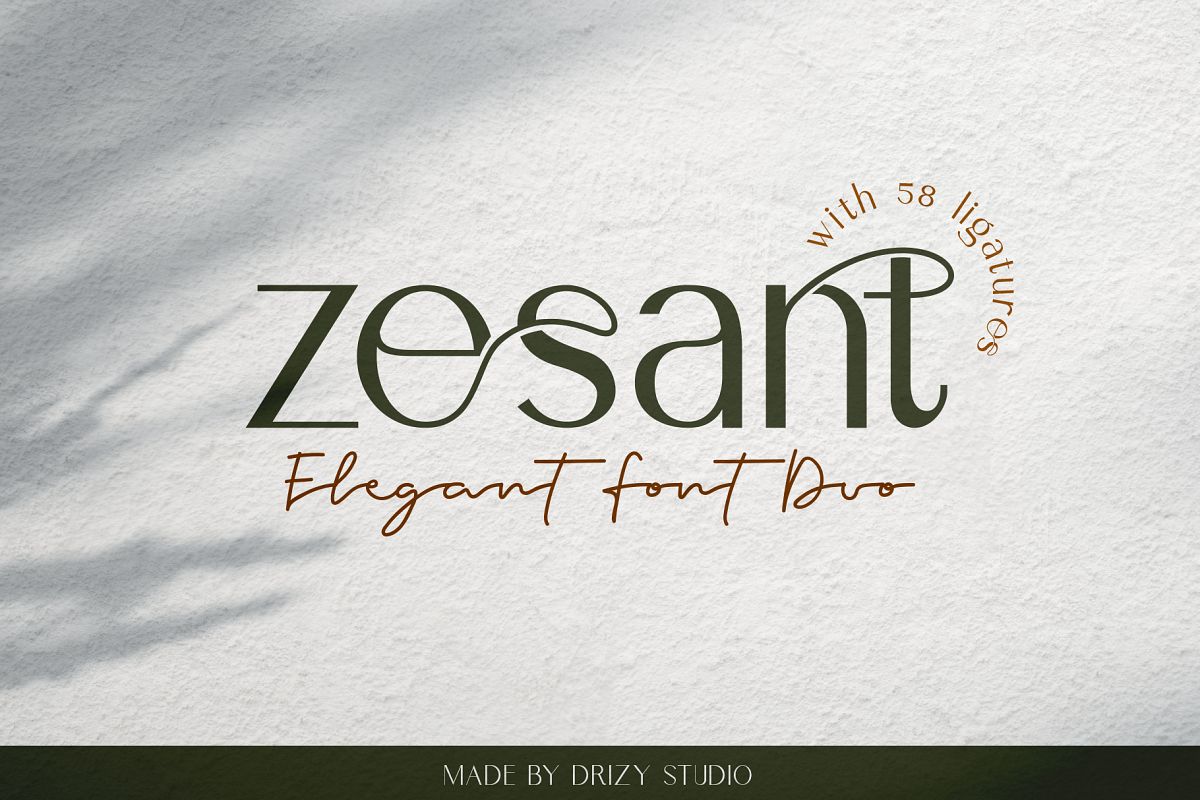
Zesant
Zesant - Elegant Font Duo
Introducing Zesant! a beautiful san serif font with a lot of ligatures from drizy! This classy and smooth san serif typeface. Perfect for gorgeous logos & titles, Zesant will pair beautifully with many fonts and work well with whatever project you're working on.
Zesant Features :
• Multilanguange ( Zesant )
• Ligatures ( Zesant )